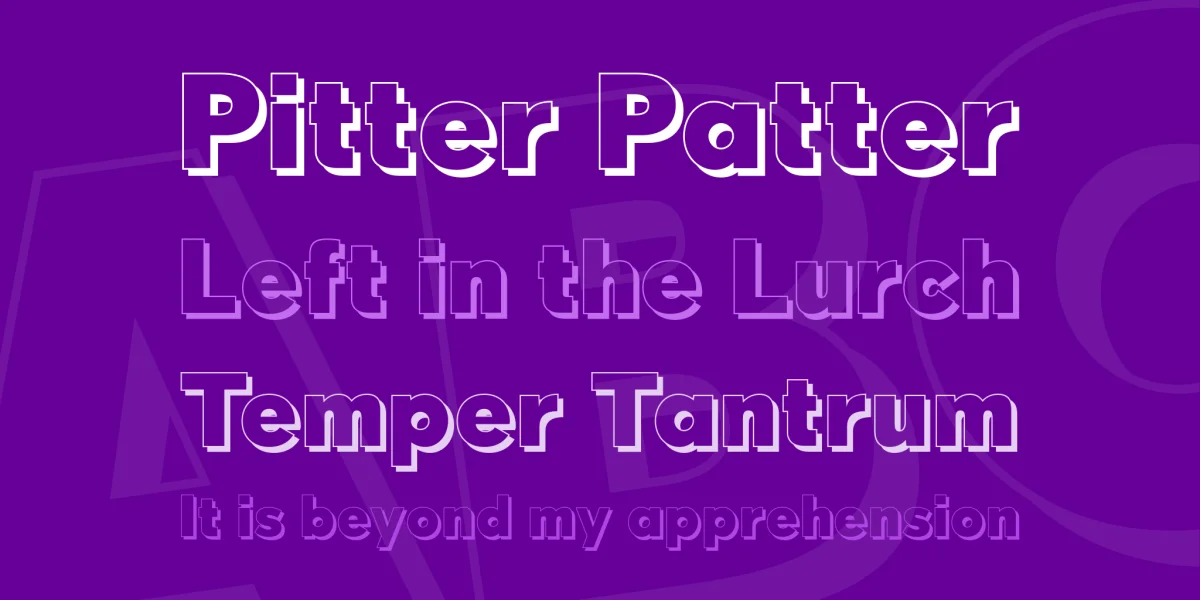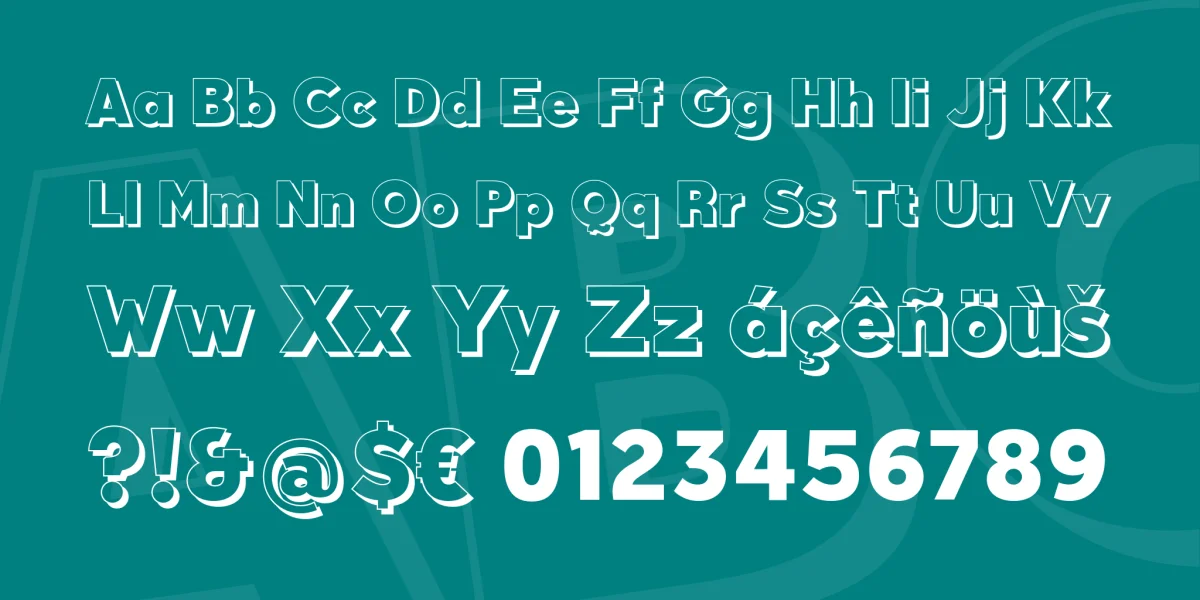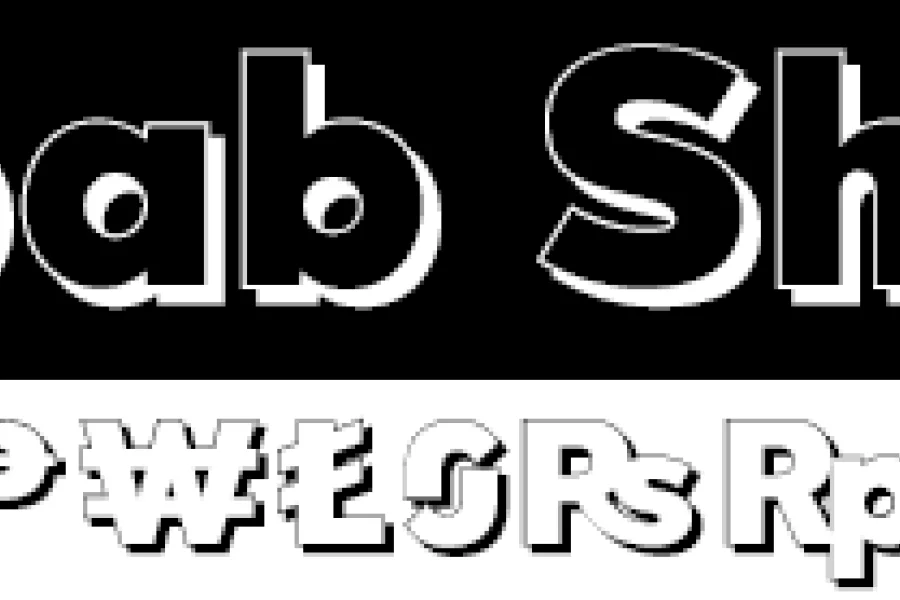
Qebab is a very thick Sans-serif shady typography. The font has many currency symbols including Bitcoin symbol. Very readable perfect display font for headlines.
Quebab es una tipografía Sans serif, muy gruesa con sombra. La fuente dispone de muchos símbolos monetarios incluido el Bitcoin. Tipografía display muy legible, perfecta para grandes titulares.